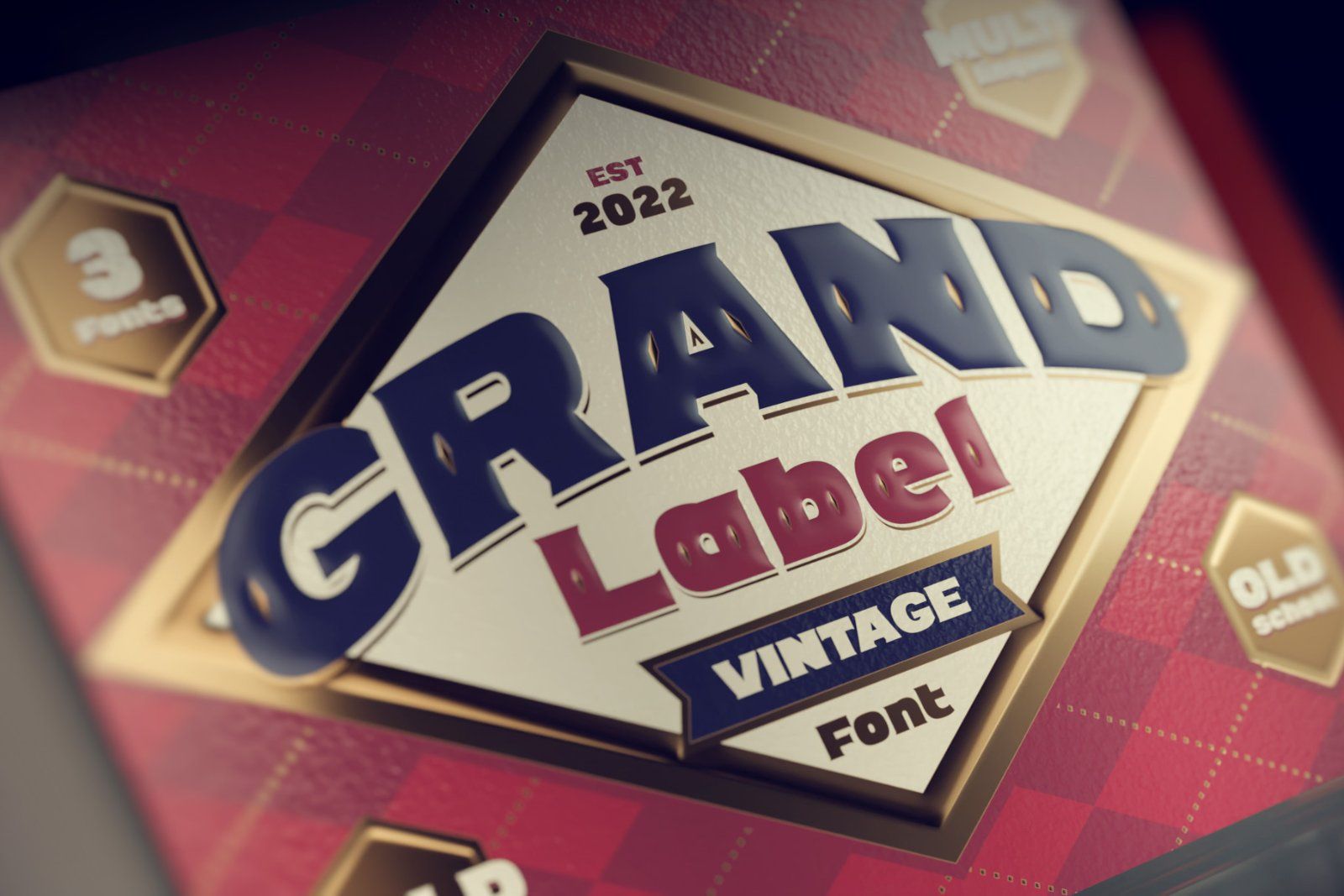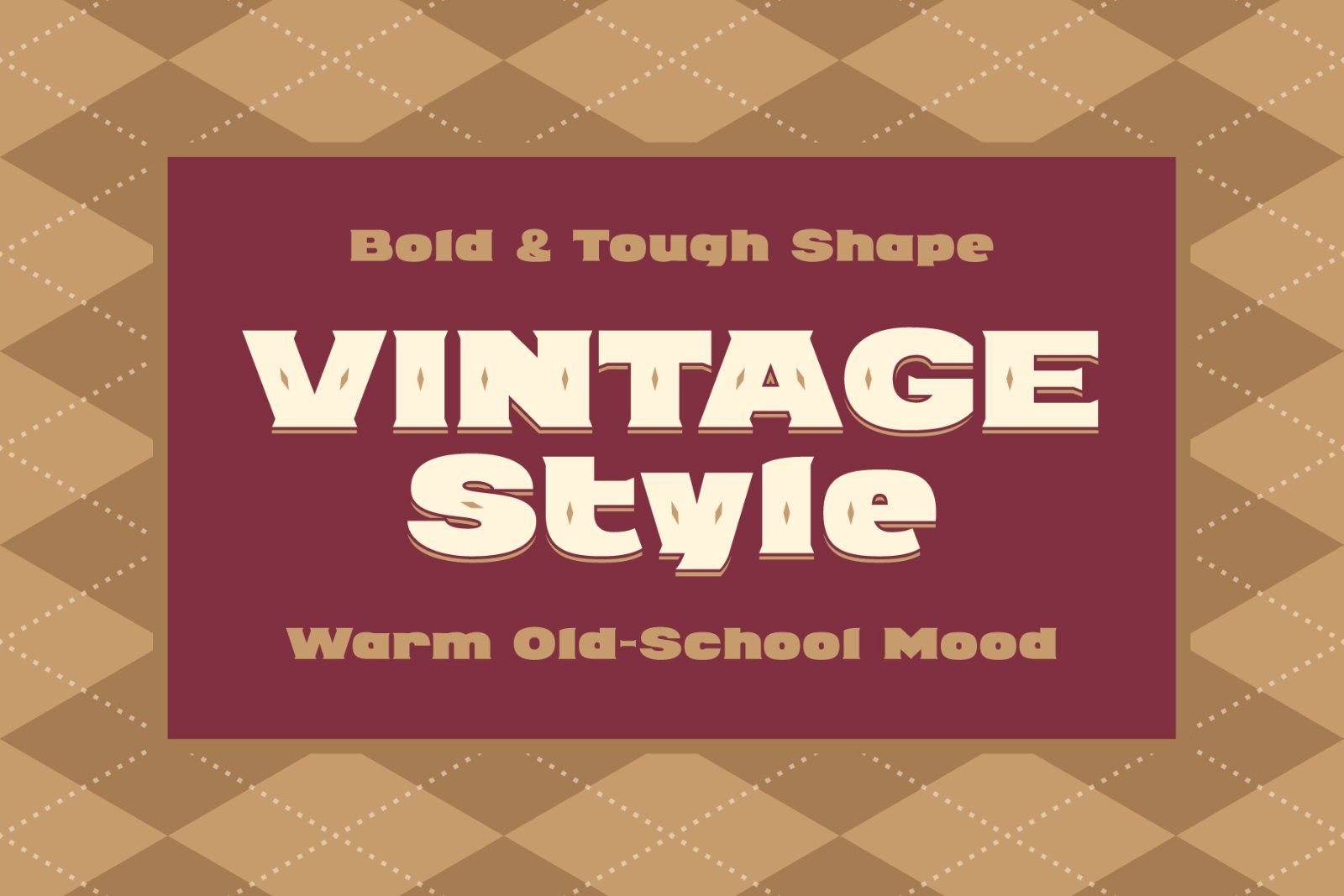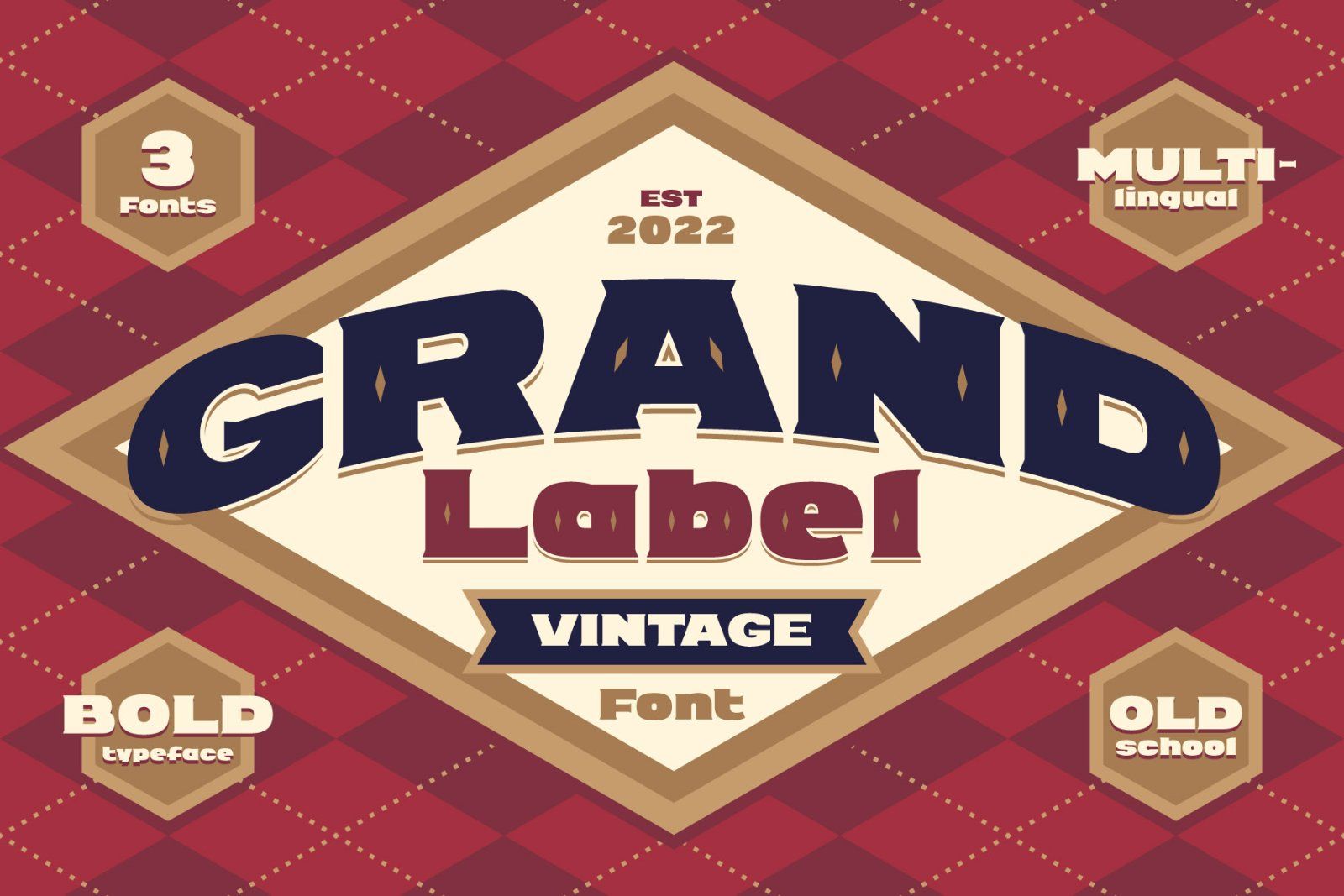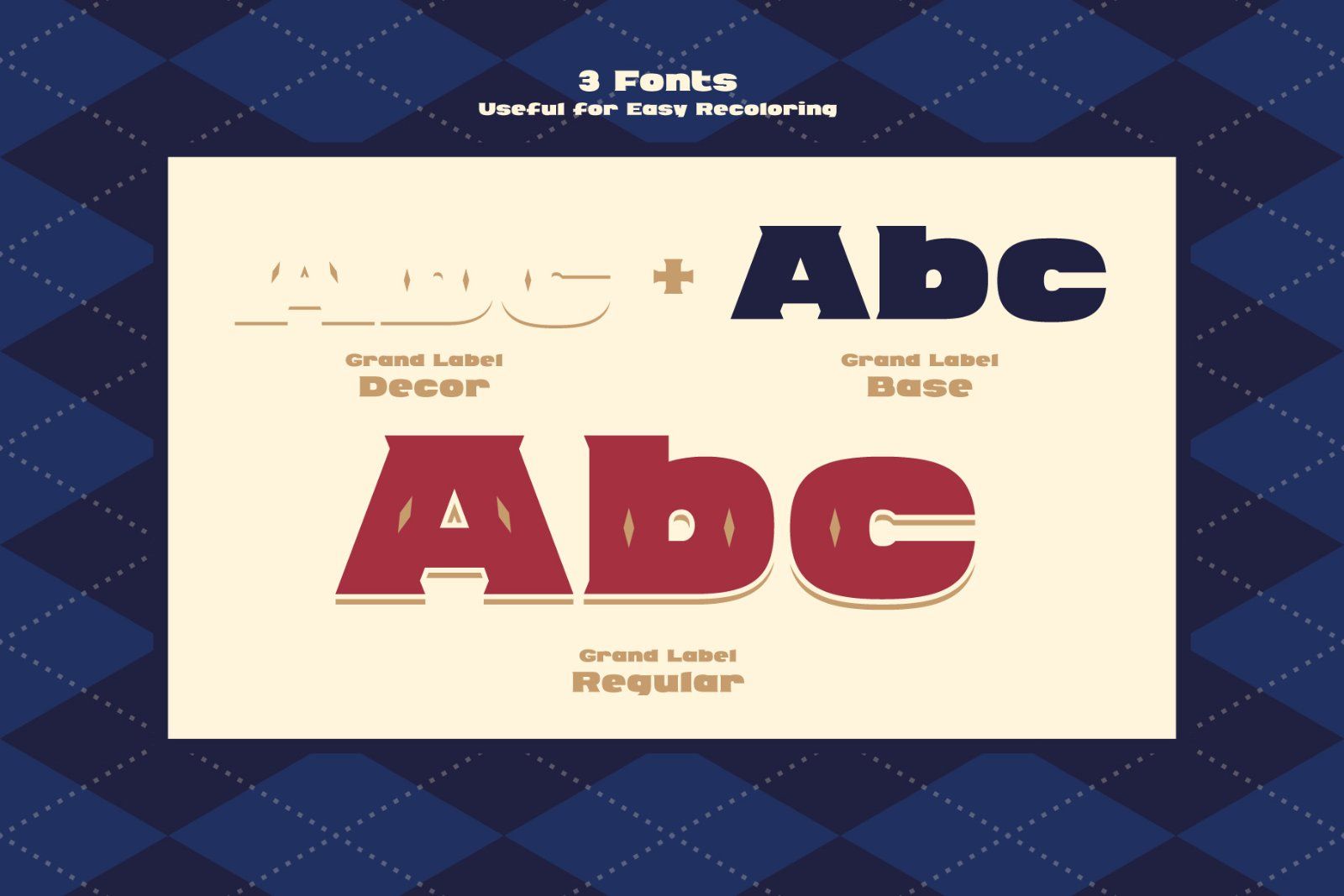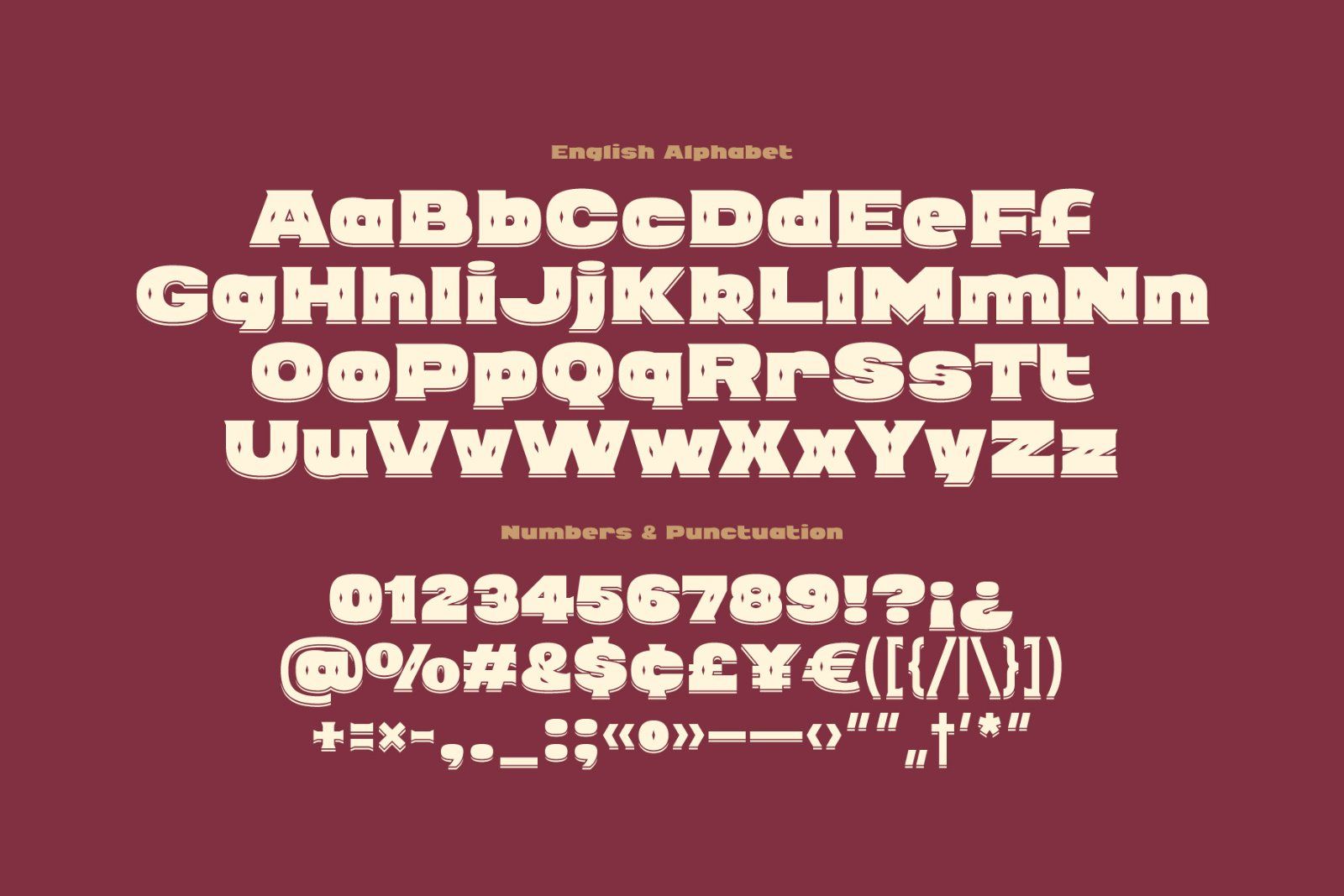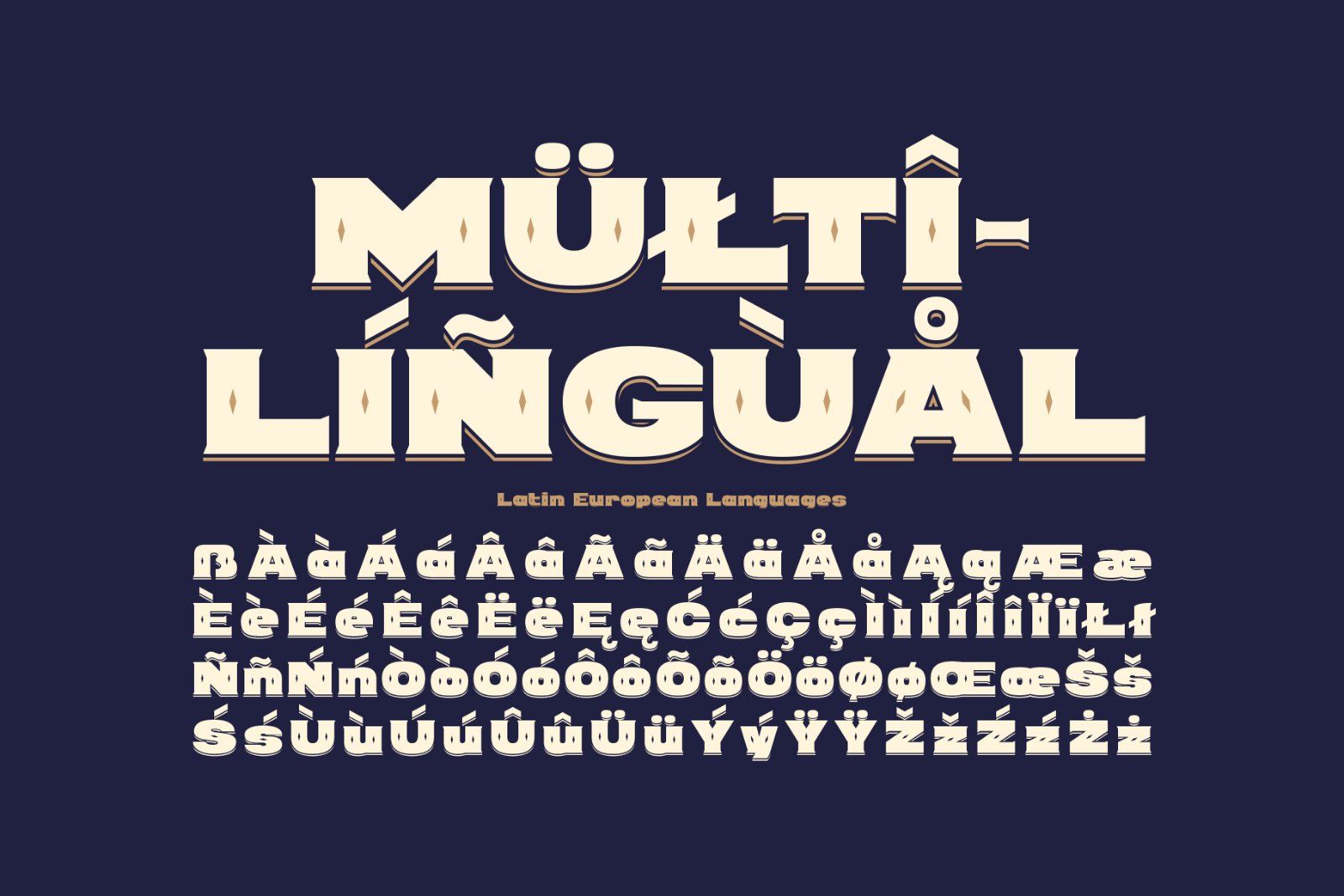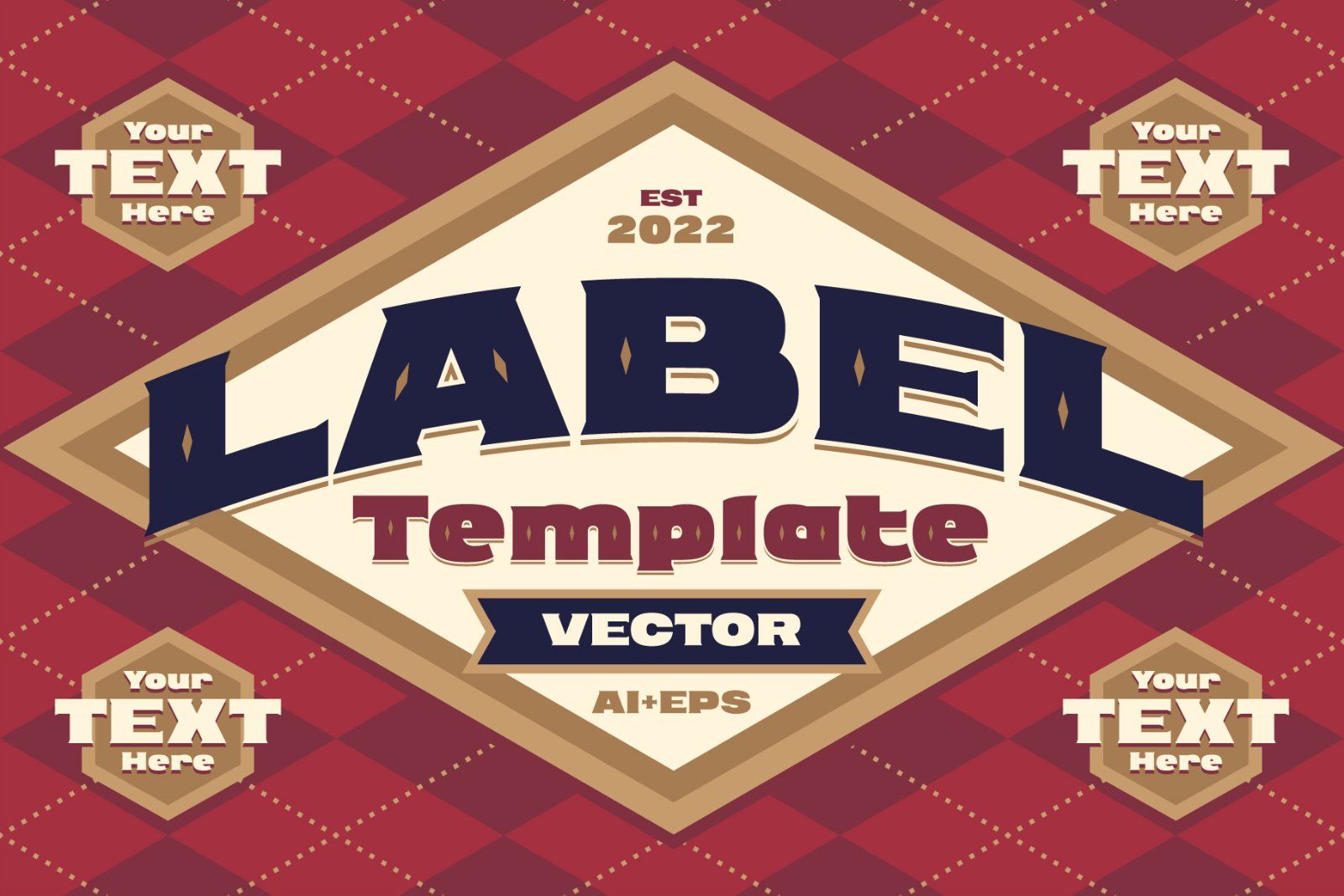
Hi, presenting a bold vintage font - Grand Label. It's an old-school typeface with decorative elements, included as a separate font file for more convenient manipulating and recoloring. Grand Label font supports most of Latin European languages (check out the screenshots with available characters).